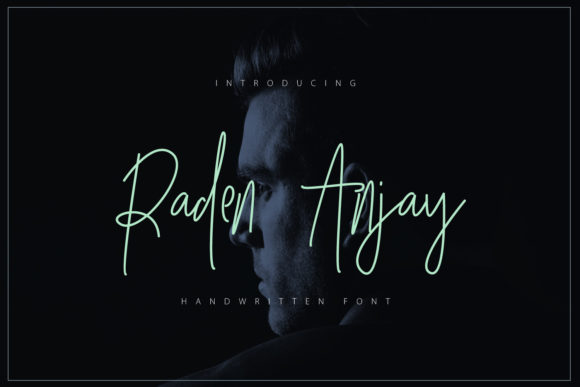
Feast your eyes on the splendor of Raden Anjay font, a creation of fiqiart that embodies the essence of artistry and finesse. Step into a world of elegance and grace with this breathtaking script font, where every letter dances off the page with effortless charm. Raden Anjay is not just a font; it's an expression of creativity, a symphony of strokes that will transform your designs into masterpieces.
With its delicate curves and enchanting flow, Raden Anjay evokes a sense of timeless beauty. Picture your words taking on a life of their own, flowing across the page with a touch of whimsy and a sprinkle of sophistication. Let Raden Anjay be your muse, inspiring you to create designs that captivate the senses and leave a lasting impression.
Immerse yourself in the versatility of Raden Anjay, a font that effortlessly adapts to your diverse design needs. Whether you're crafting wedding invitations that exude romance or thank you cards that radiate gratitude, Raden Anjay seamlessly weaves its magic. From logos that demand attention to business cards that leave a lasting impression, this font is your trusted companion in the realm of visual communication.
Unleash your creativity and let Raden Anjay take center stage. Its meticulously crafted characters will elevate your T-shirt designs to new heights, transforming them into canvases of artistic expression. Each letter becomes a statement, a visual treat that draws the eye and sparks conversation. Get ready to witness your designs come alive with a touch of magic, thanks to the brilliance of Raden Anjay.